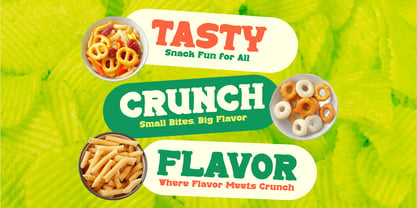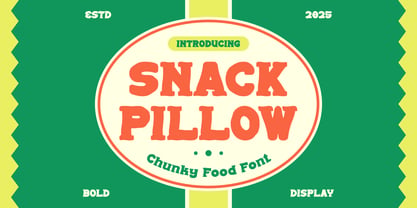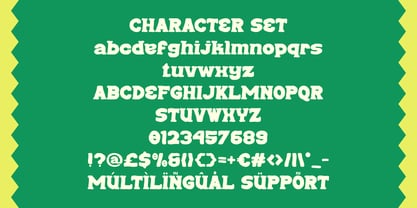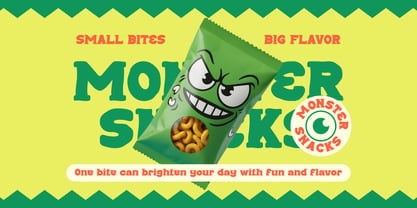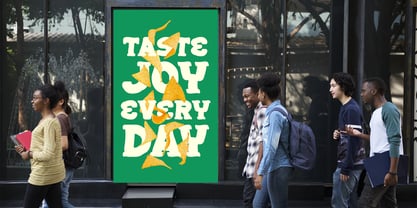
Snack Pillow
La famille de polices Snack Pillow a été conçue par Yesie Erma Yunita et publiée par Shanaf. Snack Pillow contient 1 styles. En savoir plus sur cette famille
Snack Pillow Chunky Food Display Font is a bold display typeface designed to feel friendly, full, and inviting. Each letterform appears thick and rounded, with soft edges that create a cushion-like impression. Stroke weight stays heavy and consistent, giving the font strong visual stability. The proportions feel wide and balanced, which makes words appear confident and approachable. Subtle irregularities add warmth without reducing legibility. The overall structure feels solid, smooth, and easy to read at large sizes. Characters sit comfortably together, creating a pleasant rhythm across headlines. This font delivers a cheerful presence that naturally attracts attention. Snack Pillow Chunky Food Display Font works especially well when clarity and personality must appear instantly. It communicates comfort, fun, and satisfaction through shape alone. From a stylistic perspective, Snack Pillow Chunky Food Display Font fits playful, bold, and product-focused design themes. It pairs naturally with food branding, snack packaging, and casual business identities. Designers can apply it confidently to logos, posters, advertisements, headlines, and promotional materials. The font also performs well on invitations, greeting cards, stickers, book covers, magazine titles, and film titles. Its friendly tone supports brands that want to feel welcoming, joyful, and memorable. The chunky construction helps messages stay readable from a distance. This makes it suitable for signage and retail displays. Snack Pillow Chunky Food Display Font adds charm without looking childish. It balances fun and professionalism, which helps it work across digital and print projects. Creative teams can rely on this font to strengthen brand personality, highlight product names, and deliver clear visual impact.